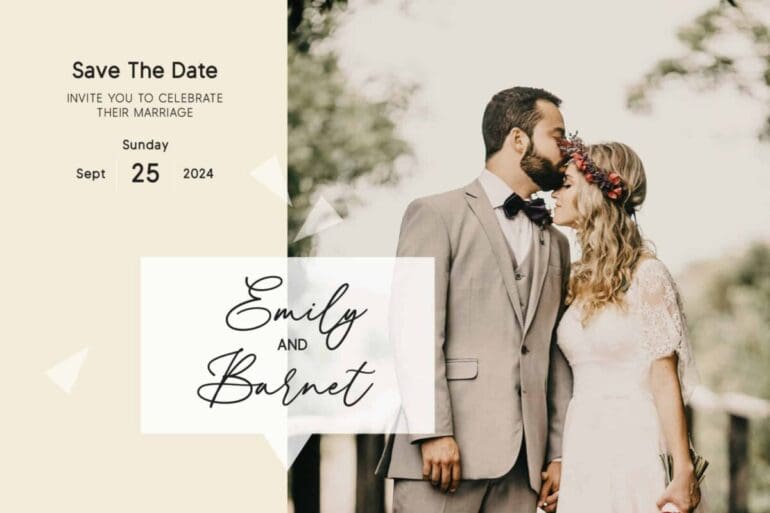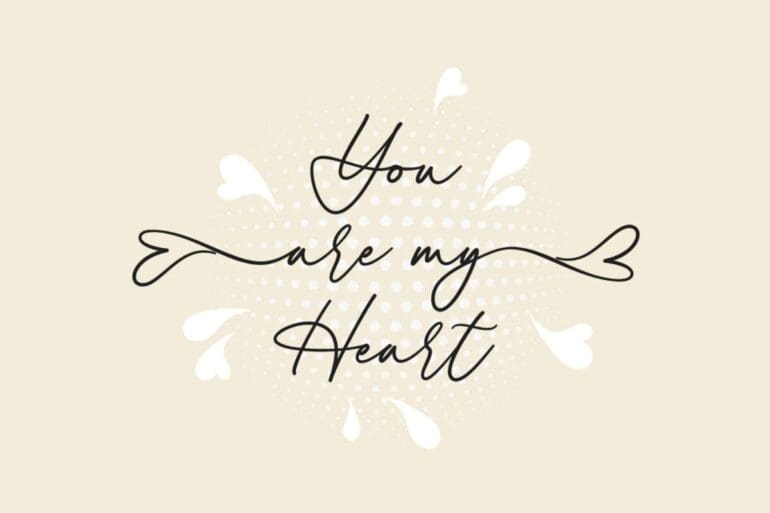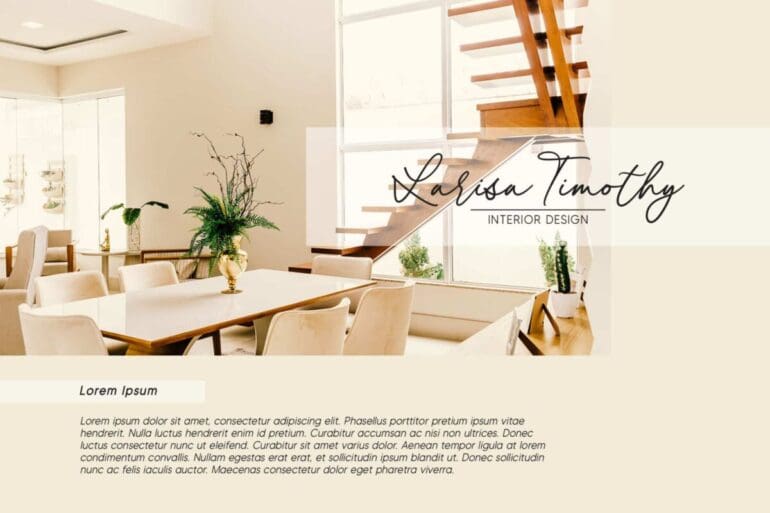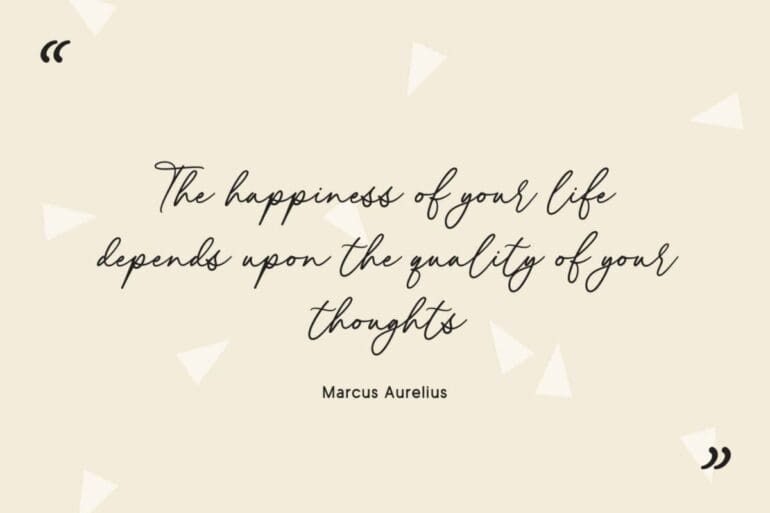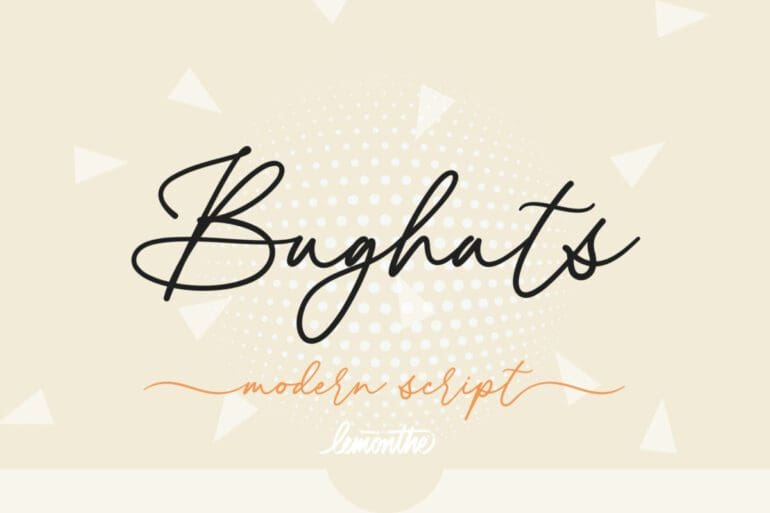
Bughats Script Font
Bughats is a relaxed and flowing Script Font with a modern style. This gentle font will look gorgeous on a variety of design ideas. Suitable for any projects such as logos, branding projects, product packaging, mugs, quotes, posters, shopping bags, t-shirts, book covers, labels, photography, watermark, and more.